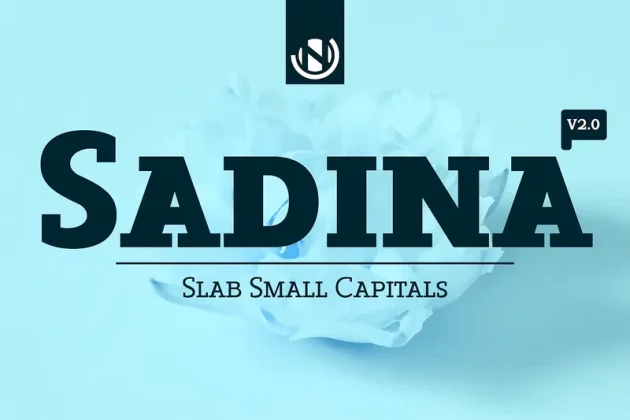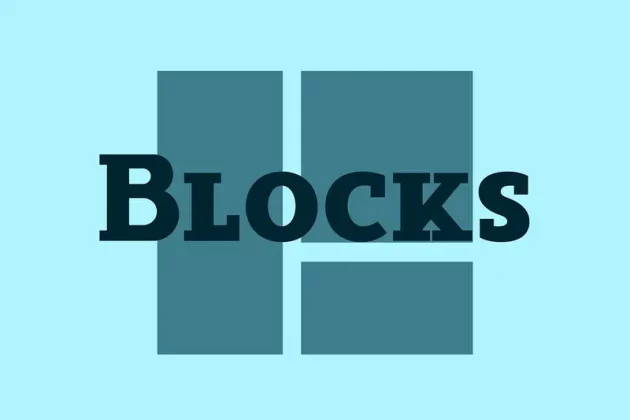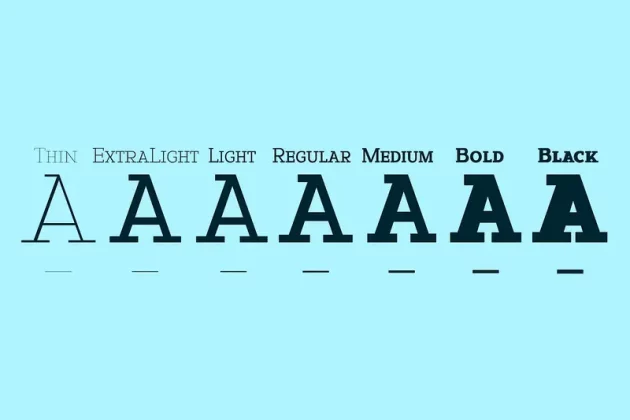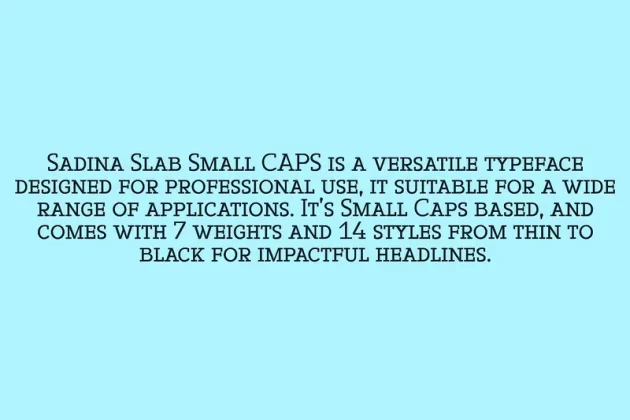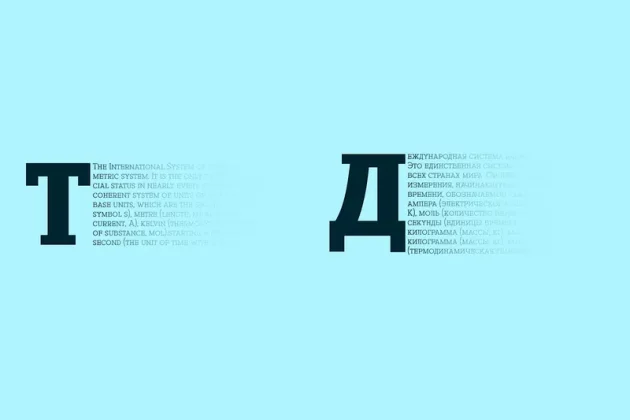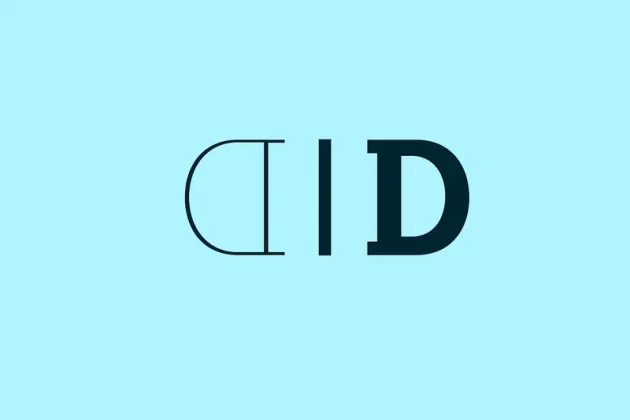
Sadina Slab SC Font
About Sadina Slab SC Font
Sadinaâ„¢ Slab Small CAPS is a contemporary slab serif typeface designed for maximum impact in headline applications. Its bold, geometric forms and condensed letterspacing create a sense of authority and modernity. The font comes in seven weights, from thin to black, allowing for versatility in design. Sadinaâ„¢ Slab Small CAPS also supports OpenType features, including alternates, ensuring smooth typographic performance across different platforms. With support for a wide range of Latin languages, this font is suitable for multilingual projects.